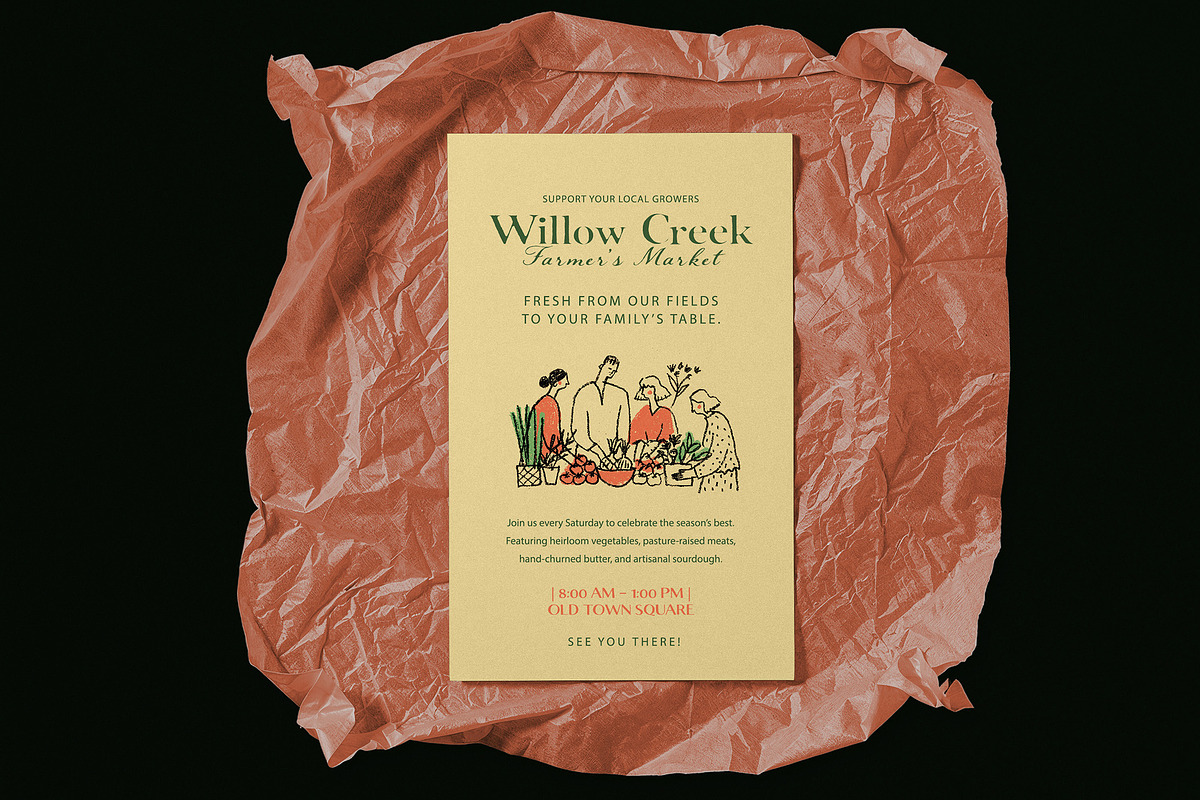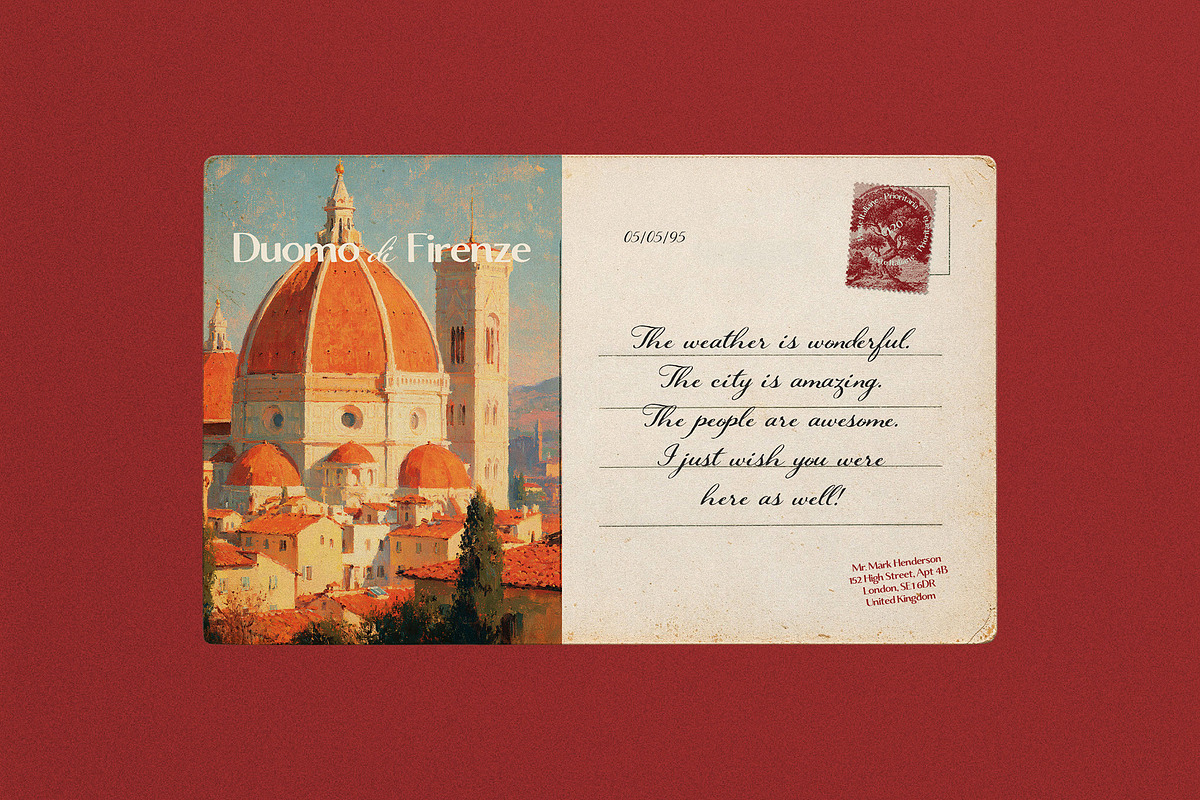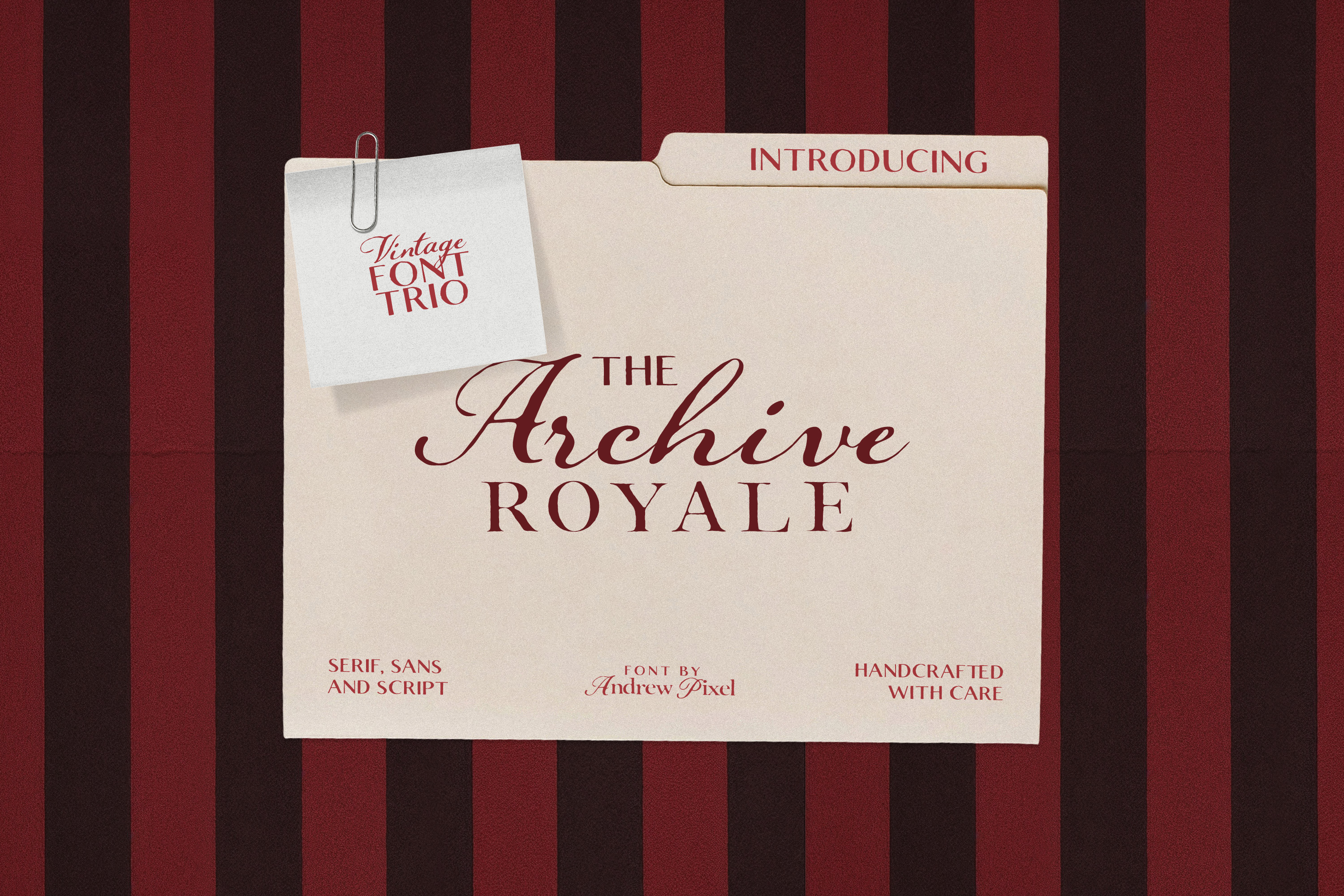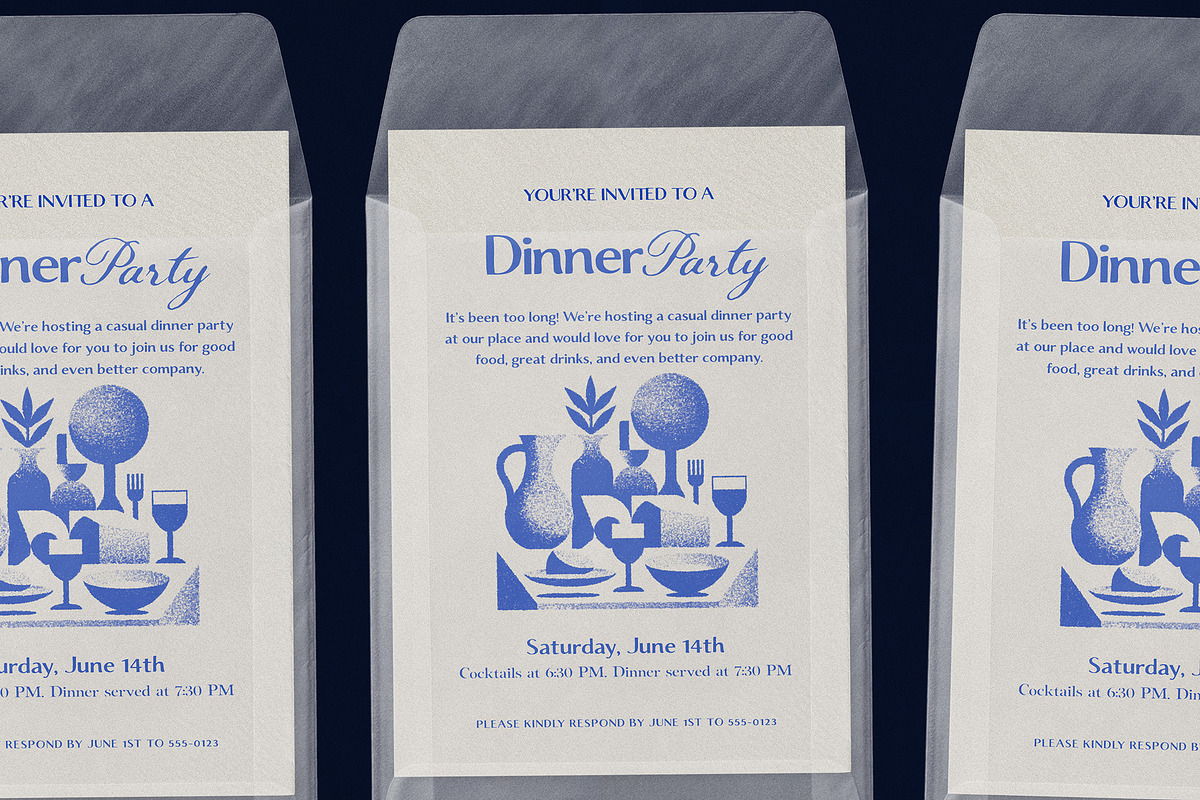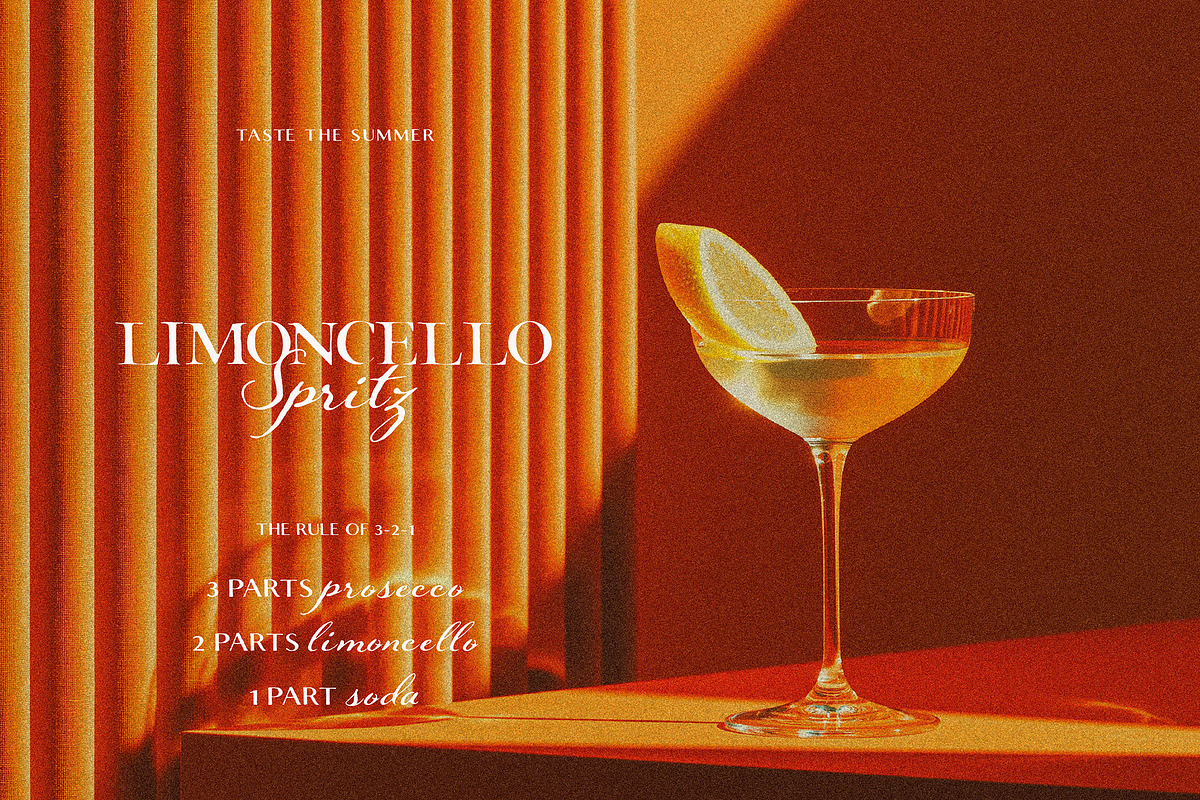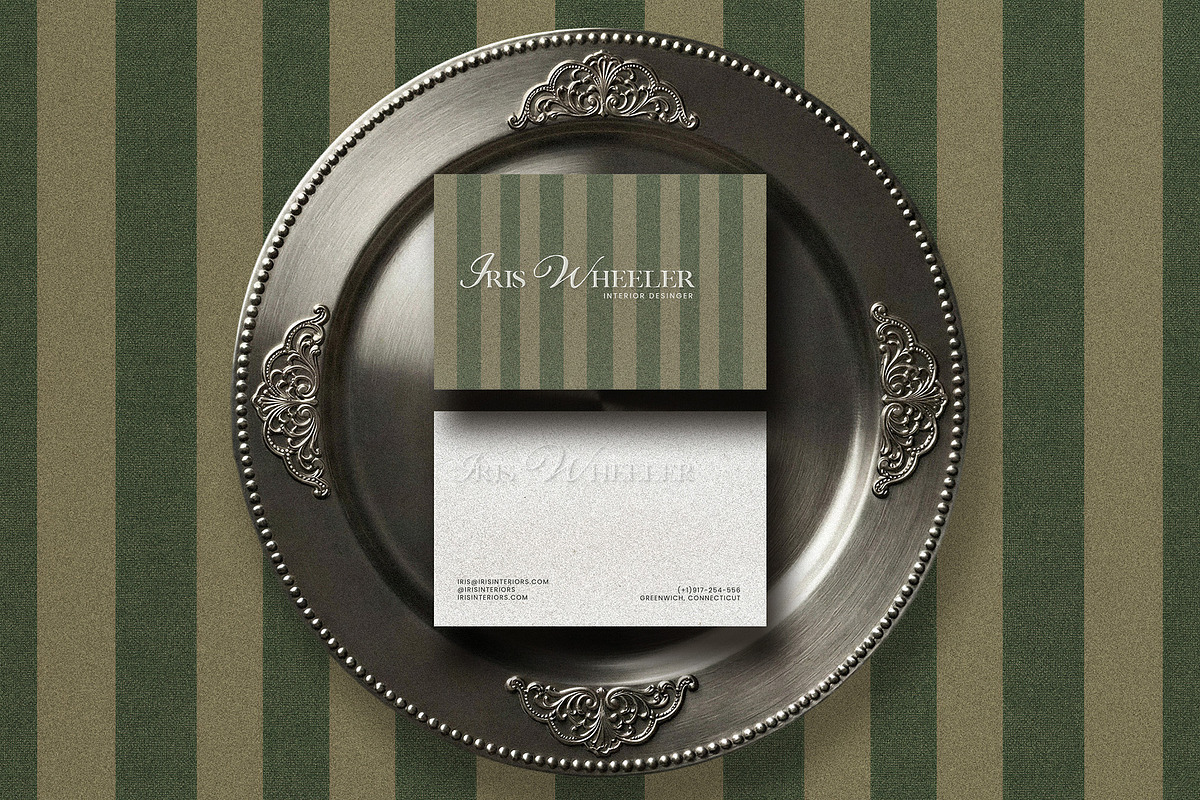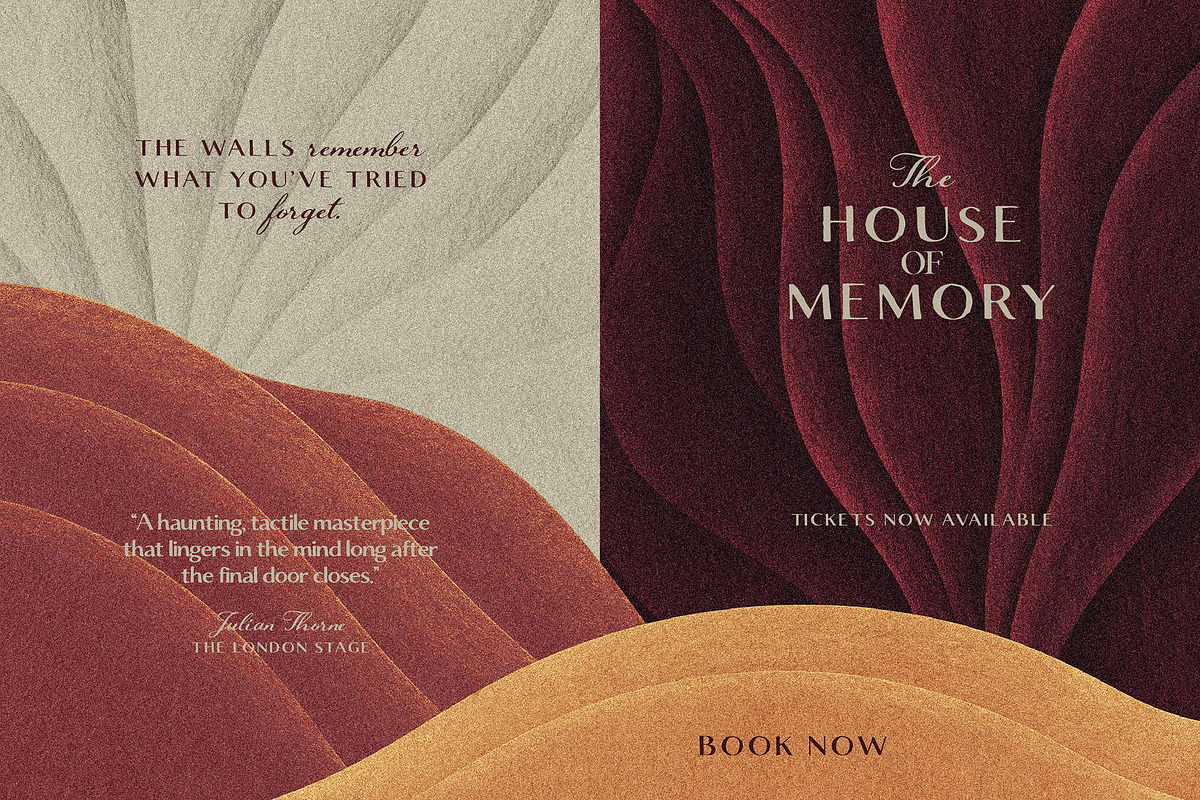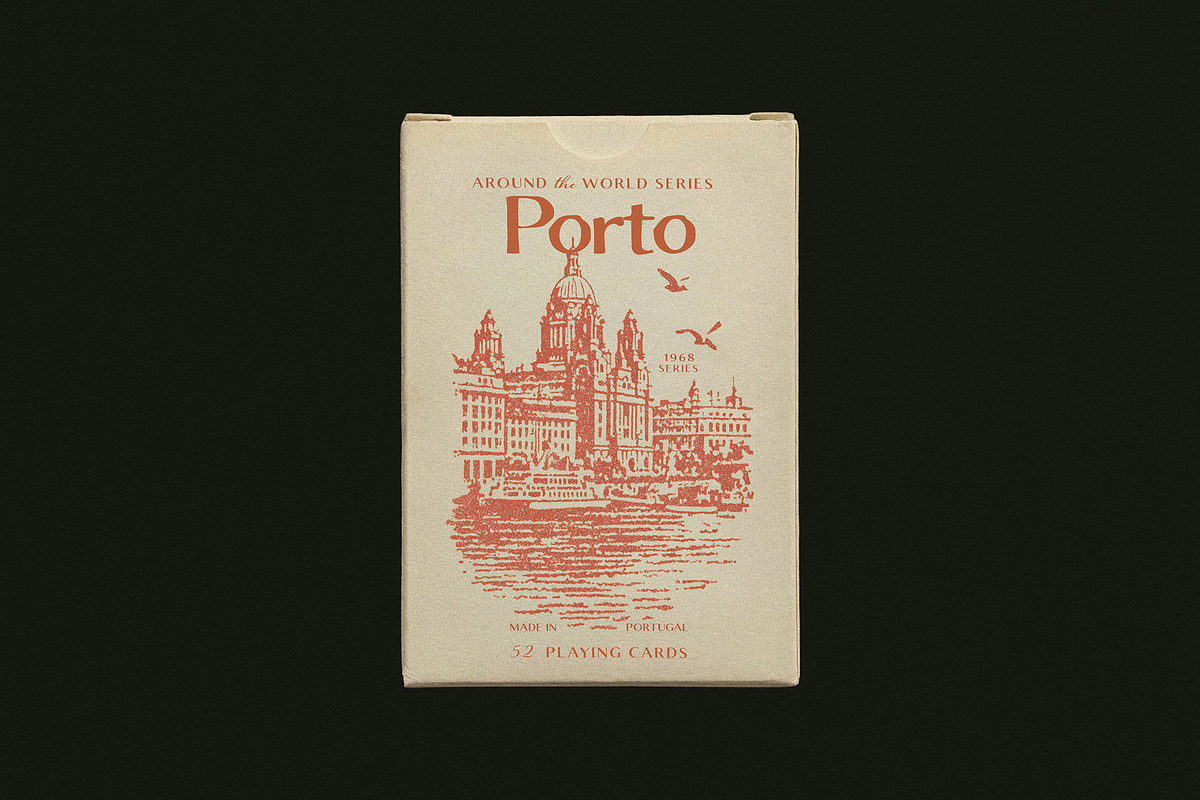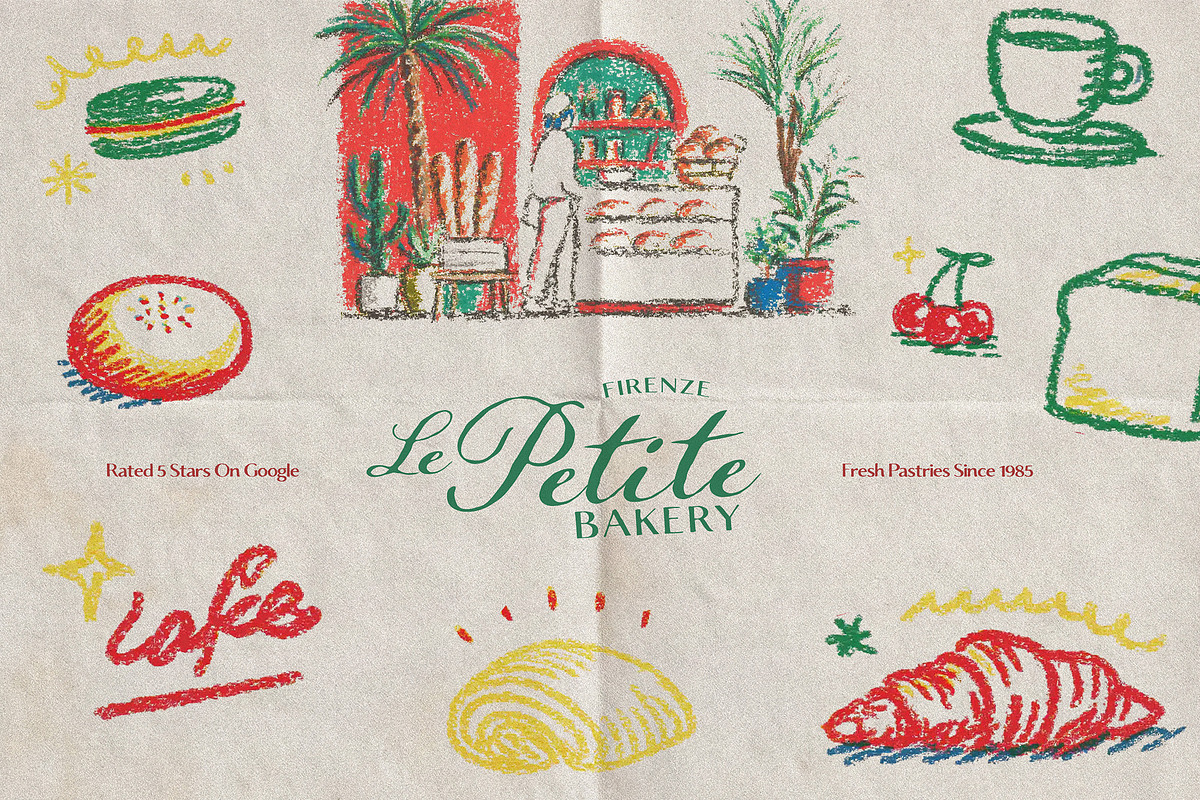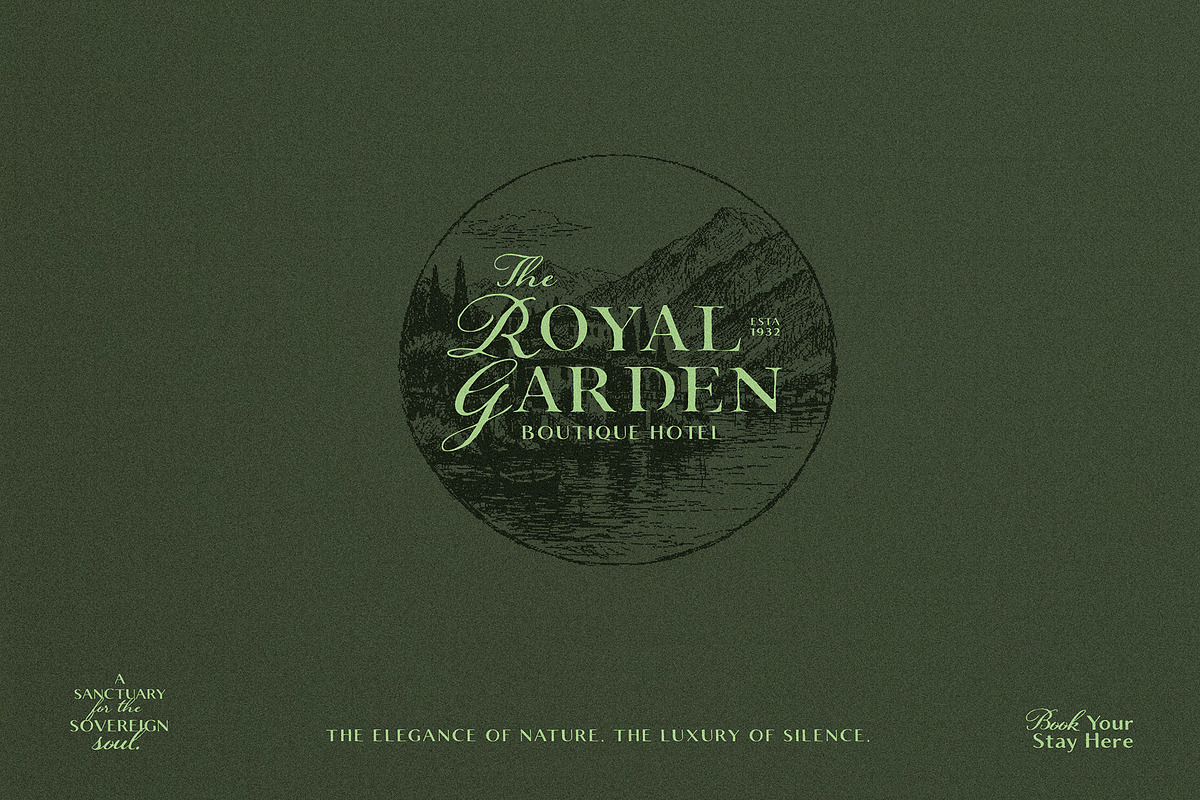
Archive Royal - Vintage Font Trio
The Archive Royale is a timeless font trio designed for the modern nostalgic. This collection brings together three distinct but perfectly harmonized styles: a sophisticated high-contrast Serif, a clean and versatile Sans, and a fluid, hand-drawn Script.
Whether you are building a high-end brand identity or creating artisanal packaging, this trio offers the ultimate "all-in-one" solution. Inspired by vintage file folders, heritage luxury, and European bistro aesthetics, The Archive Royale is designed to look as good on a digital screen as it does on textured paper.
- Archive Royale Serif (.OTF): A bold, high-contrast serif that exudes authority and luxury. Perfect for headlines and logos.
- Archive Royale Sans (.OTF): A minimalist, balanced sans-serif designed for secondary text, sub-headers, and clean layouts.
- Archive Royale Script (.OTF): An elegant, flowing script that adds a personal, handcrafted touch to any project.
This trio is ideal for designers who love the grainy, analog feel of 1950s stationery, heritage farm branding, and sun-drenched Mediterranean lifestyle layouts.
- Brand Identity & Logos: Create a complete brand system for boutiques, florists, bakeries, or photographers.
- Product Packaging: Perfect for wine labels, organic skincare, artisanal coffee bags, and candle labels.
- Wedding & Event Stationery: Design high-end invitations, RSVP cards, and menus that feel like family heirlooms.
- Editorial Design: Use the serif for titles and the sans for body copy in digital magazines or lookbooks.
- Restaurant & Cafe Menus: Capture that "Le Petite Bakery" or "Italian Spritz" vibe with ease.